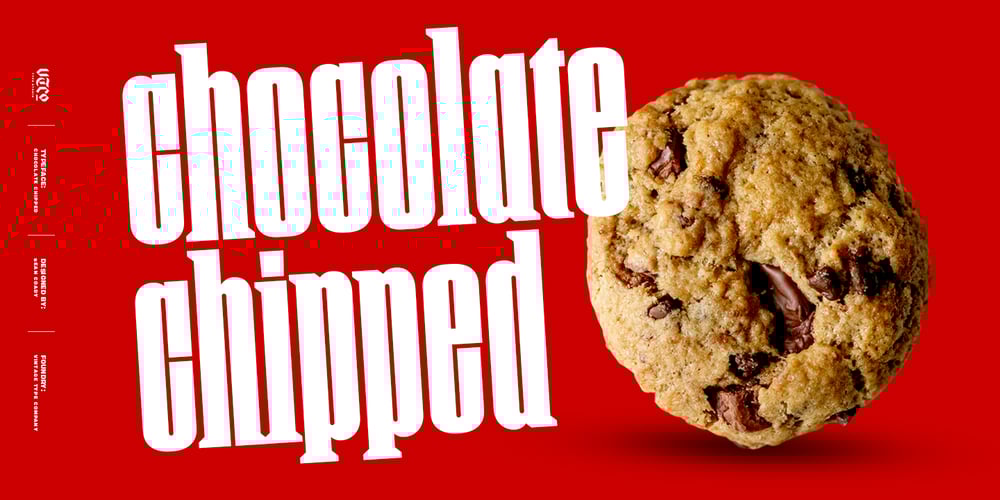
Chocolate Chipped Font Family was designed by Sean Coady and published by Vintage Type Company. Chocolate Chipped contains 6 styles and family package options. VTC Chocolate Chipped is a modern and minimalist homage to exaggerated woodblock typefaces of the past.It’s the perfect little font collection for loud and in-your-face messaging, with 3 different weights in standard and oblique flavours.Adobe Latin 1 & Basic Cyrillic language support are also included.